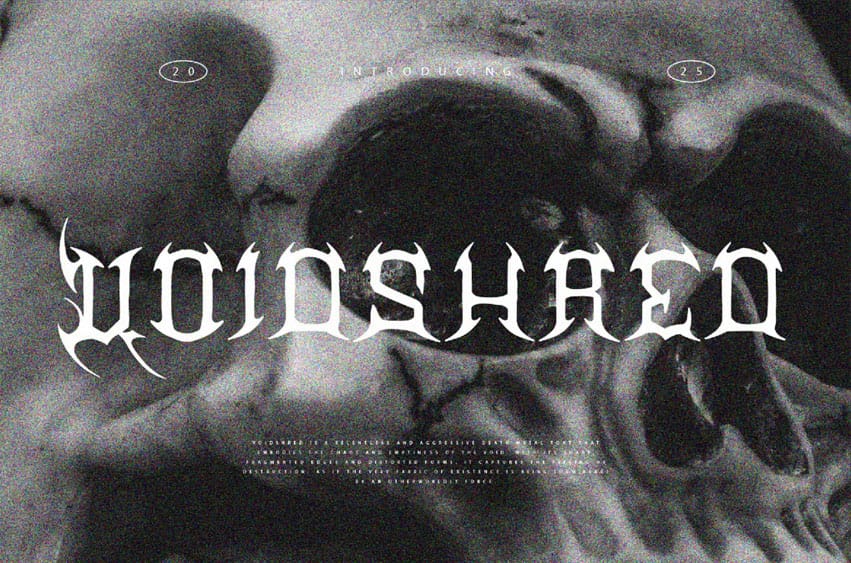
Voidshred Deathmetal Font is a relentless and aggressive death metal font that embodies the chaos and emptiness of the void.
With its sharp, fragmented edges and distorted forms, it captures the feeling of destruction, as if the very fabric of existence is being torn apart by an otherworldly force.